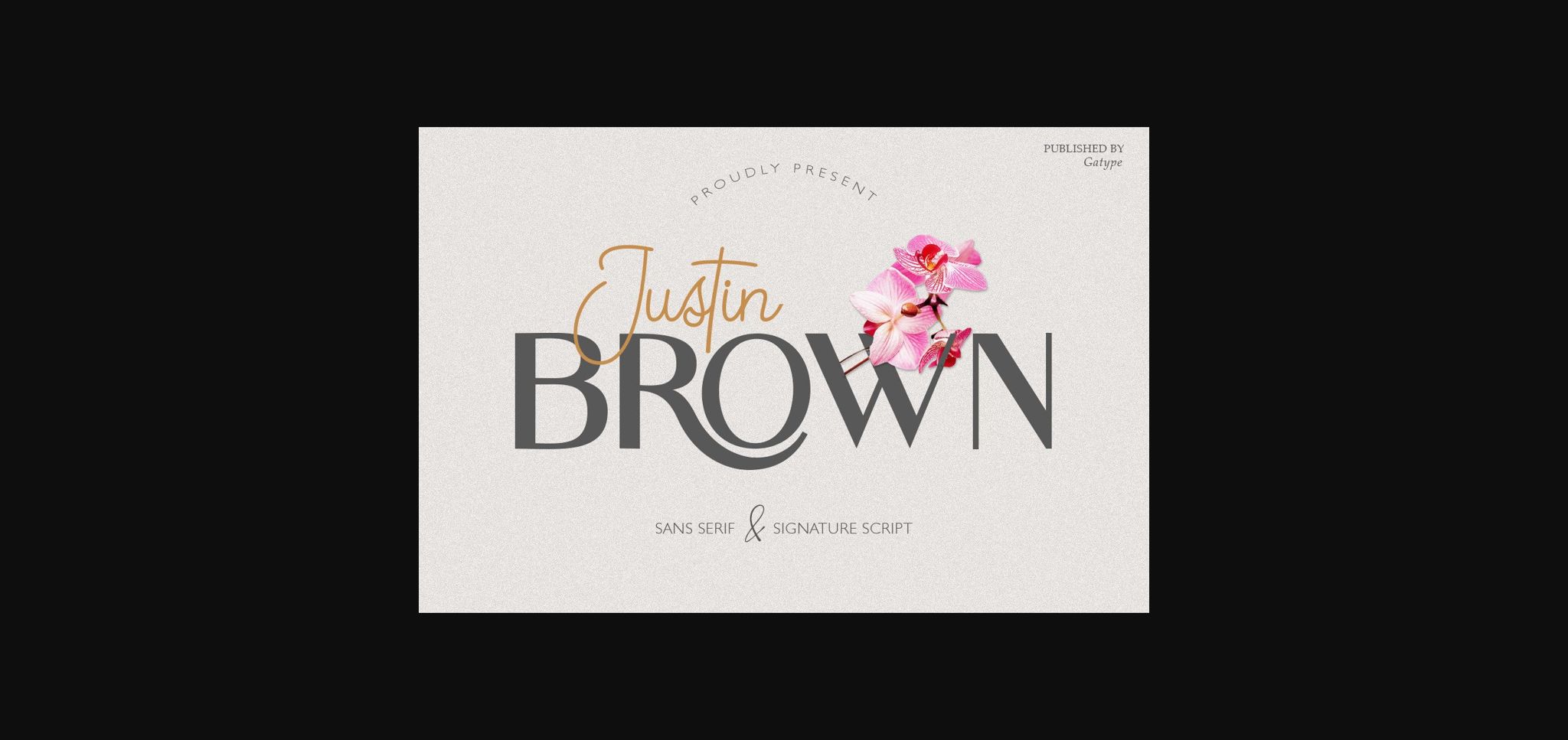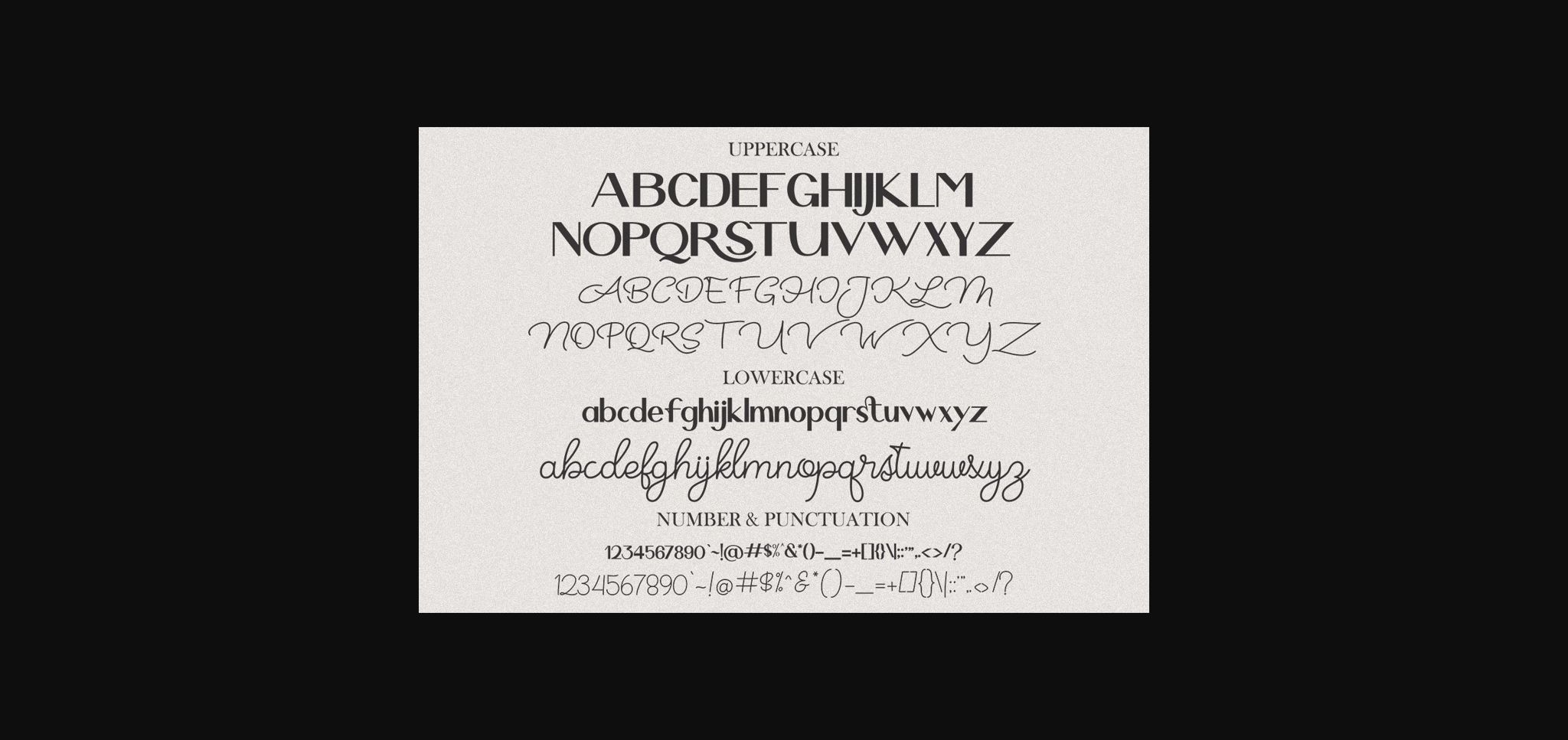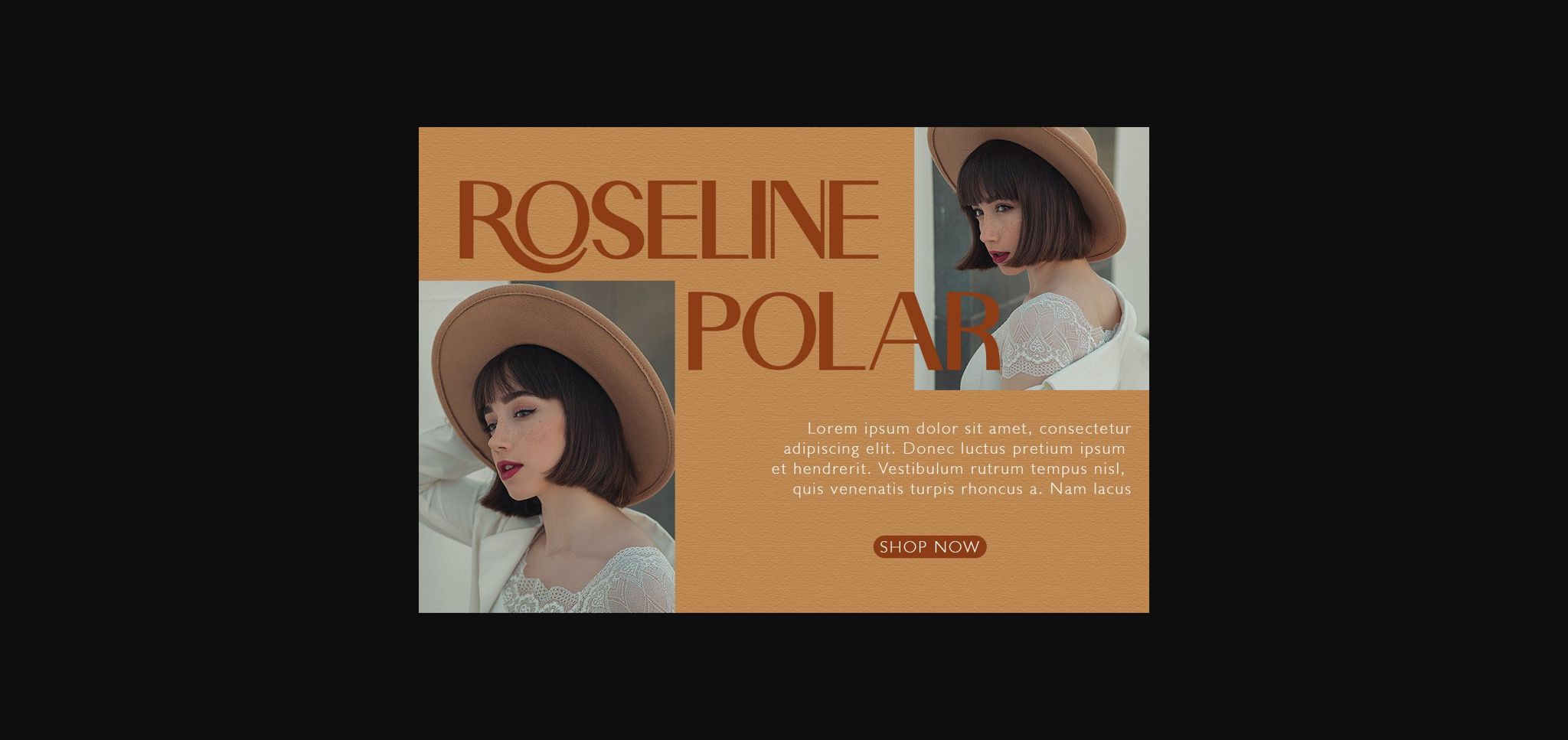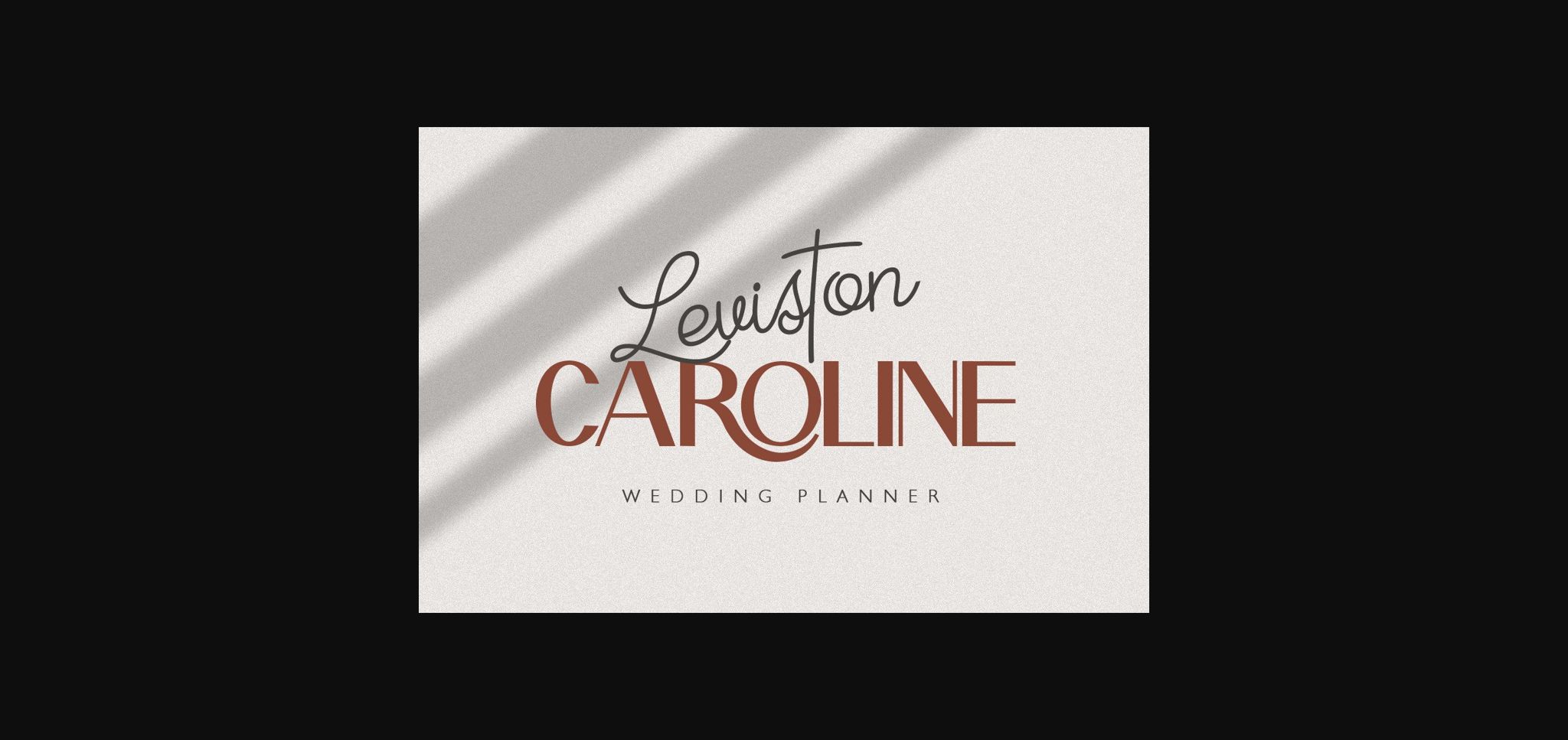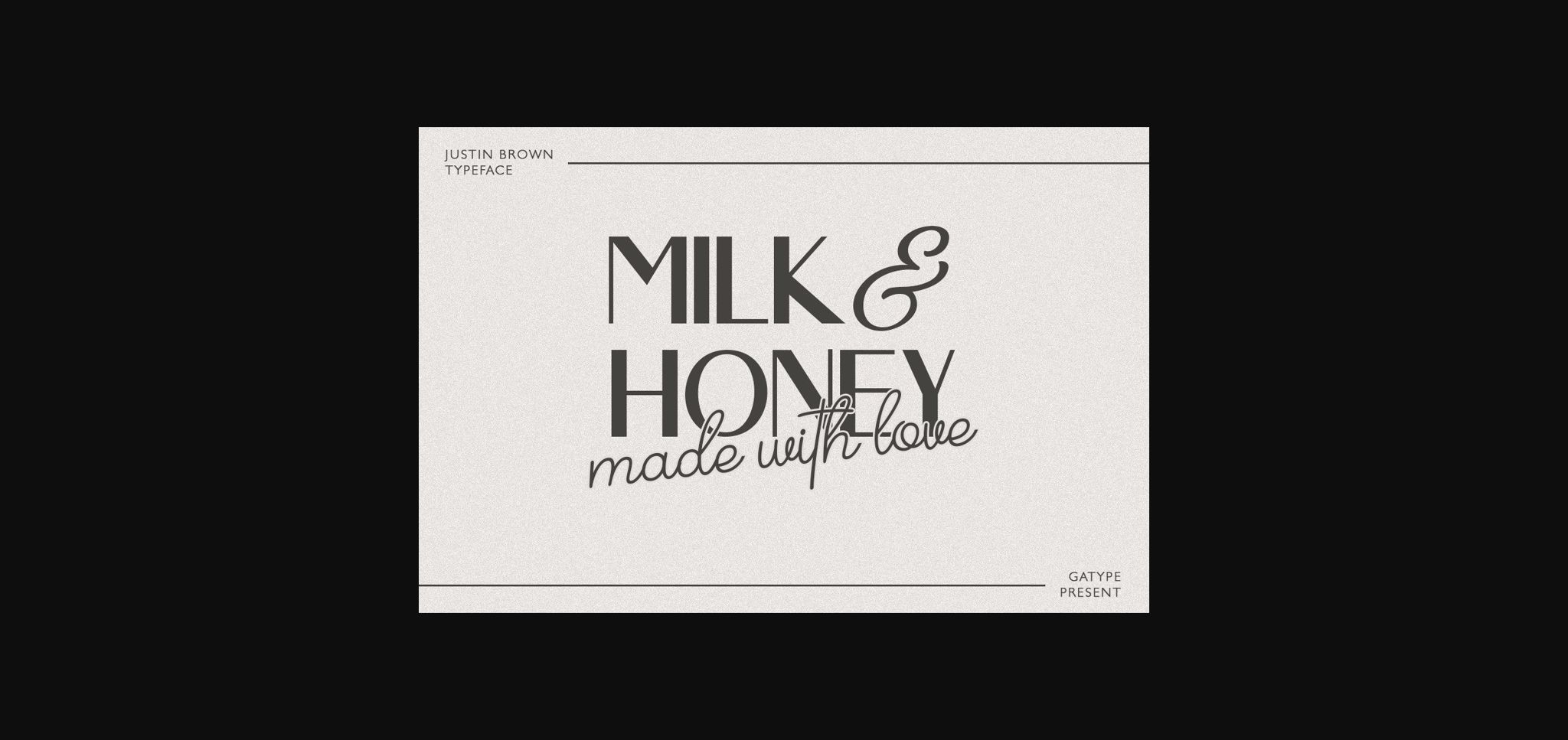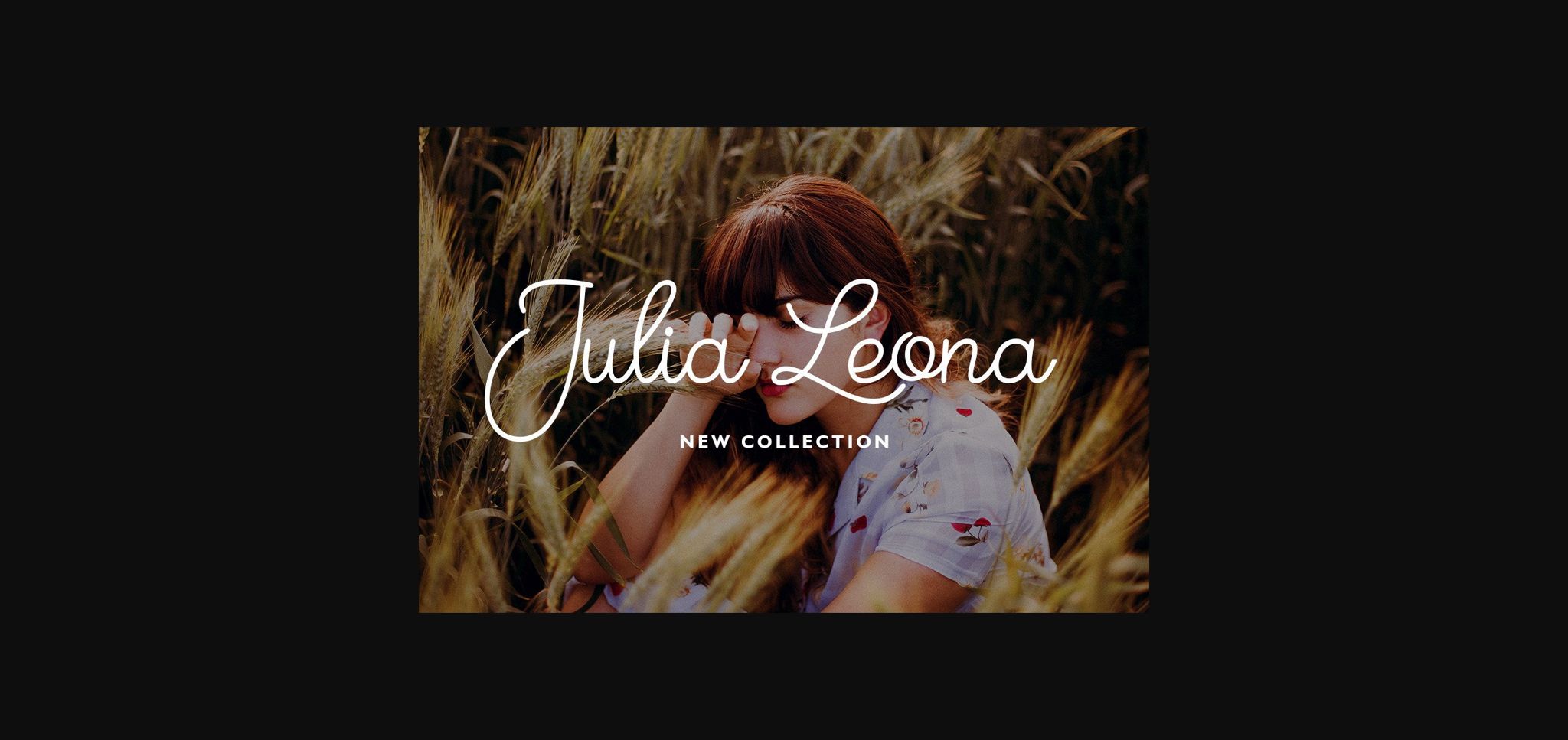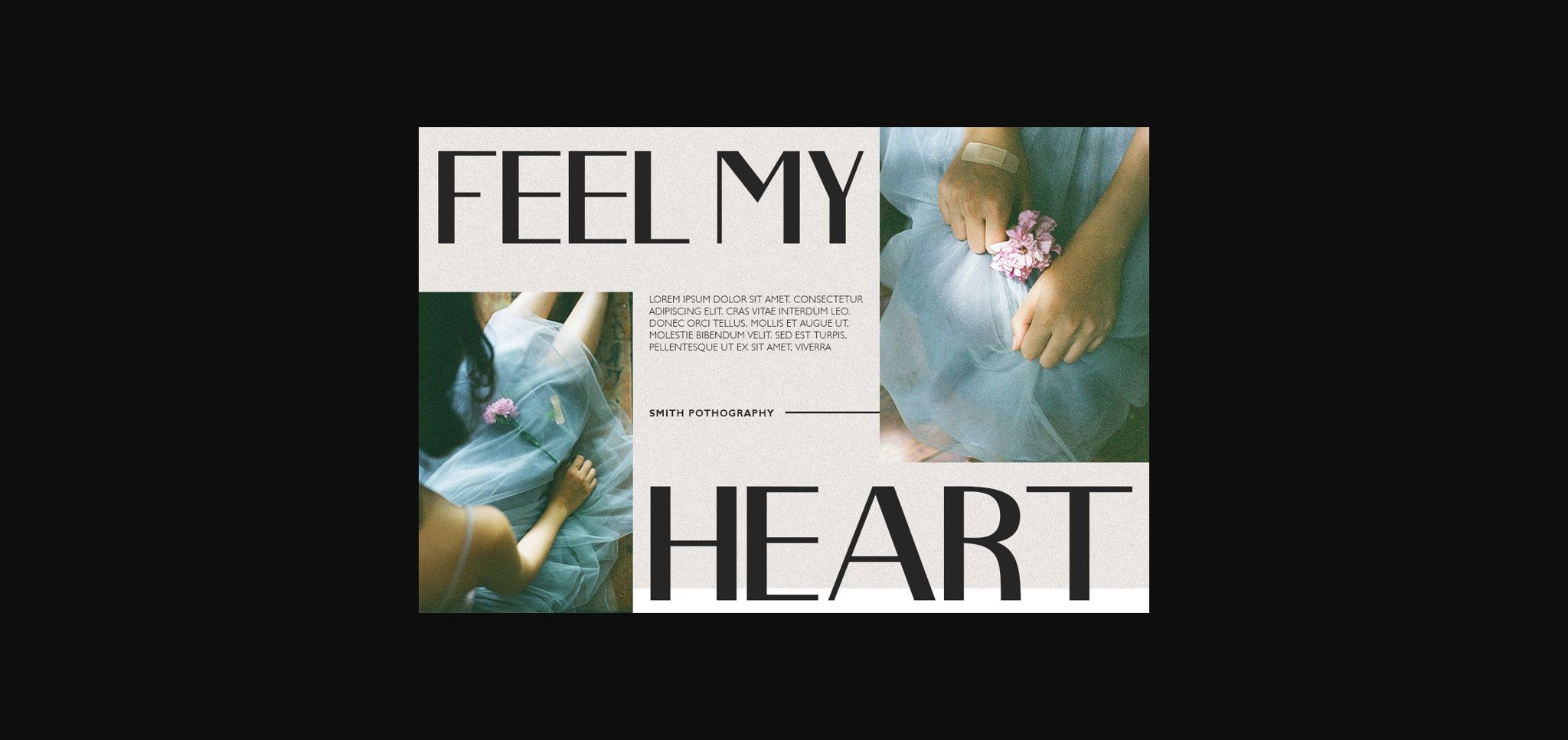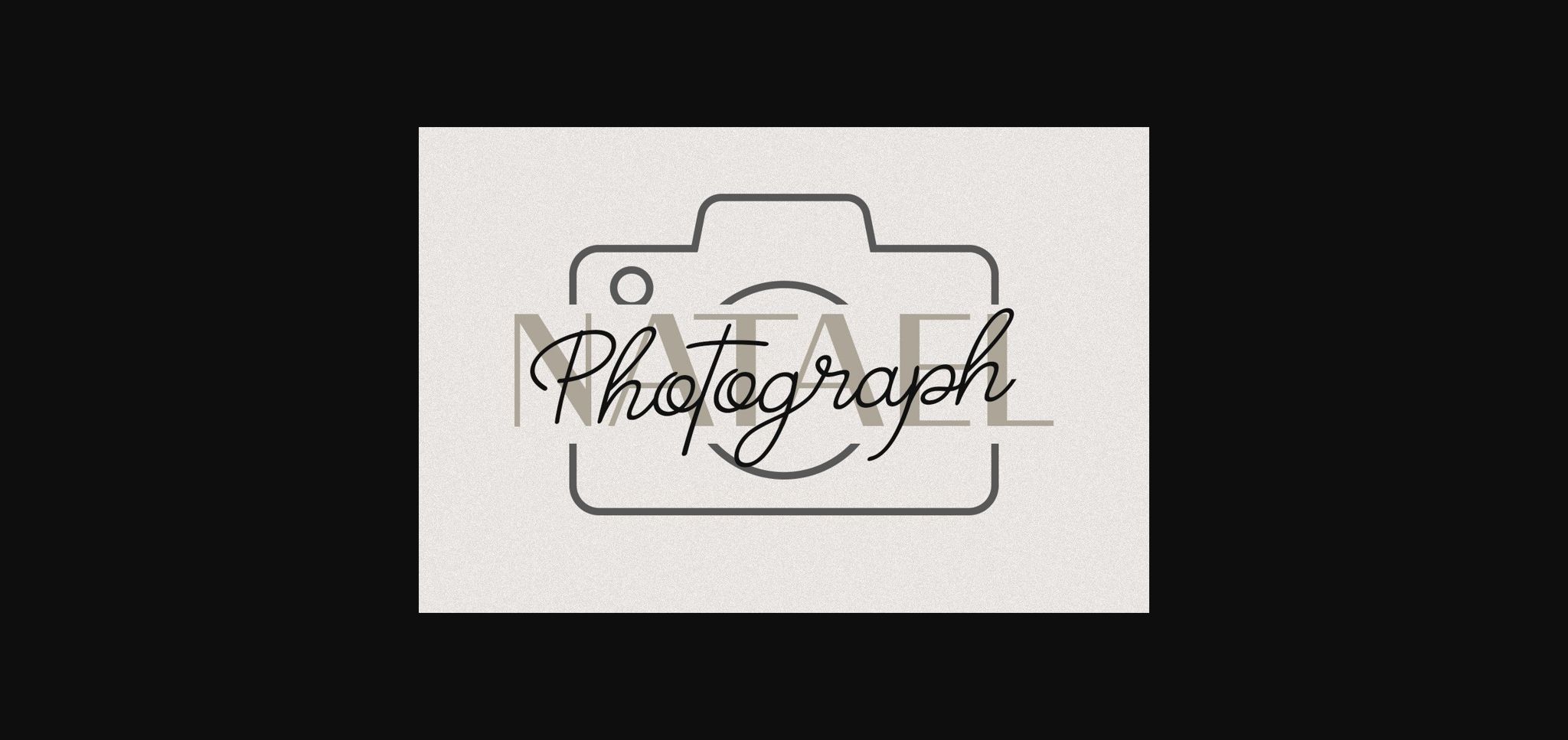
Justin Brown Duo Font
About Justin Brown Duo Font
Justin Brown is an exquisite font duo (sans serif and signature script). It will add a unique, luxury spark to any design you wish to create!